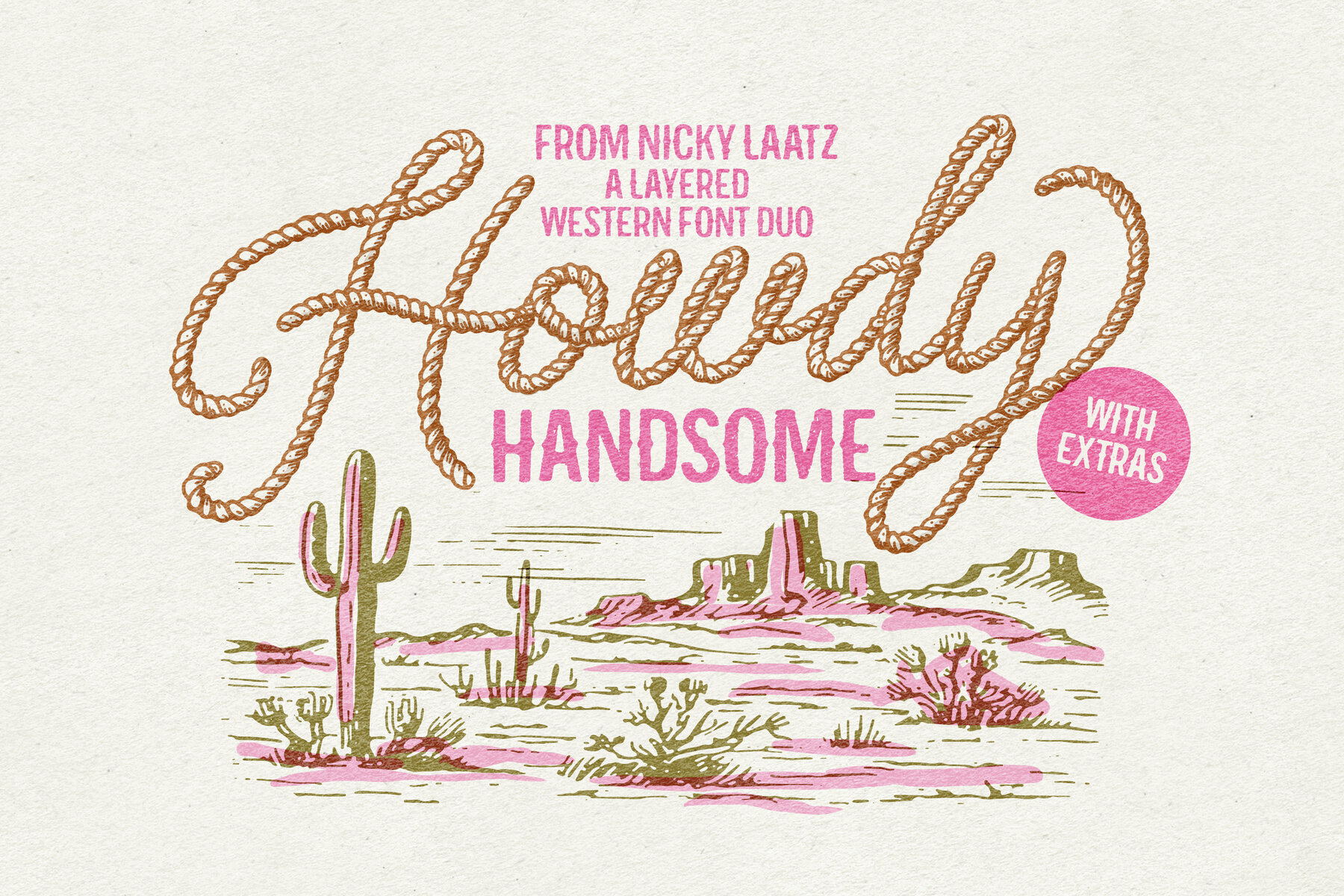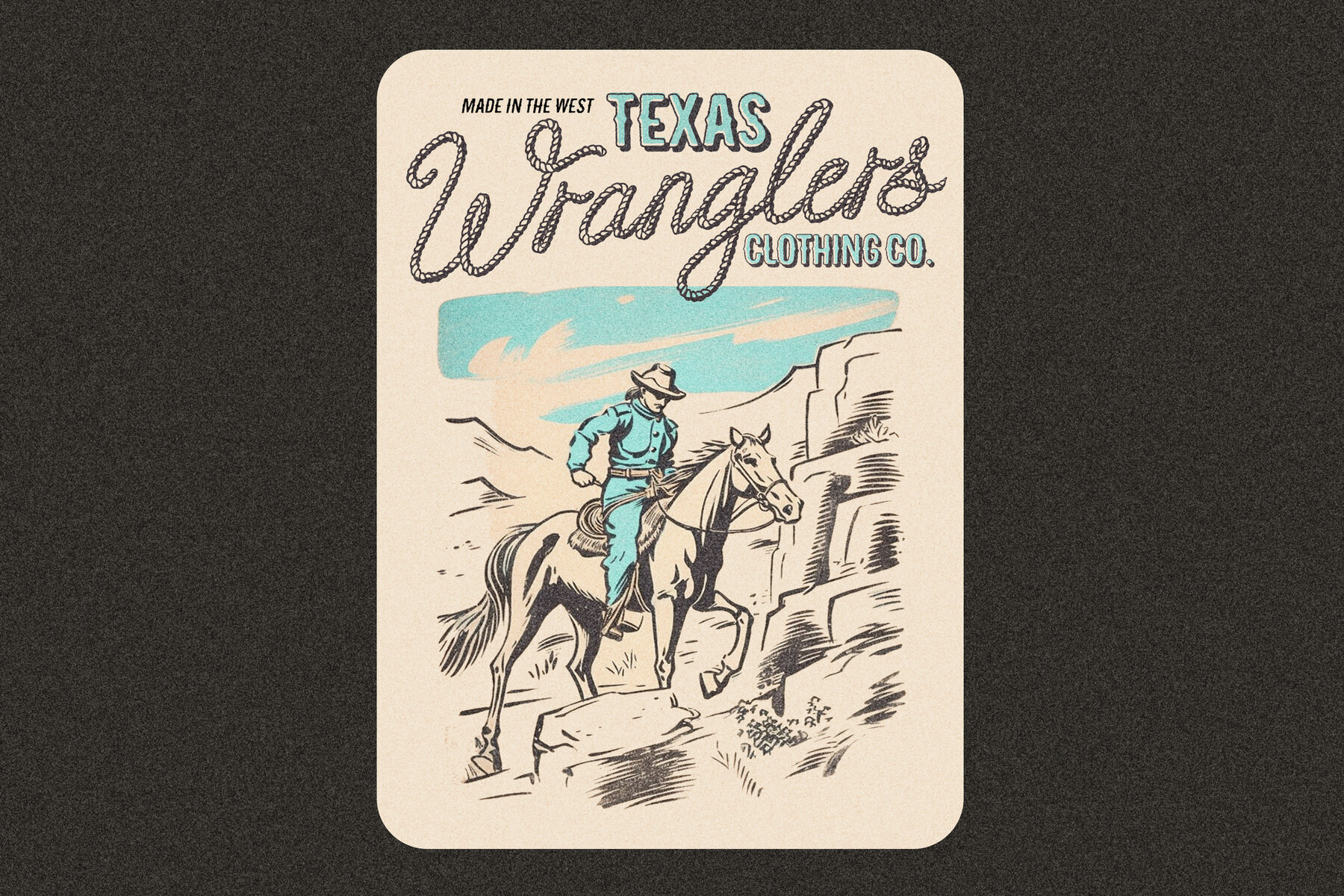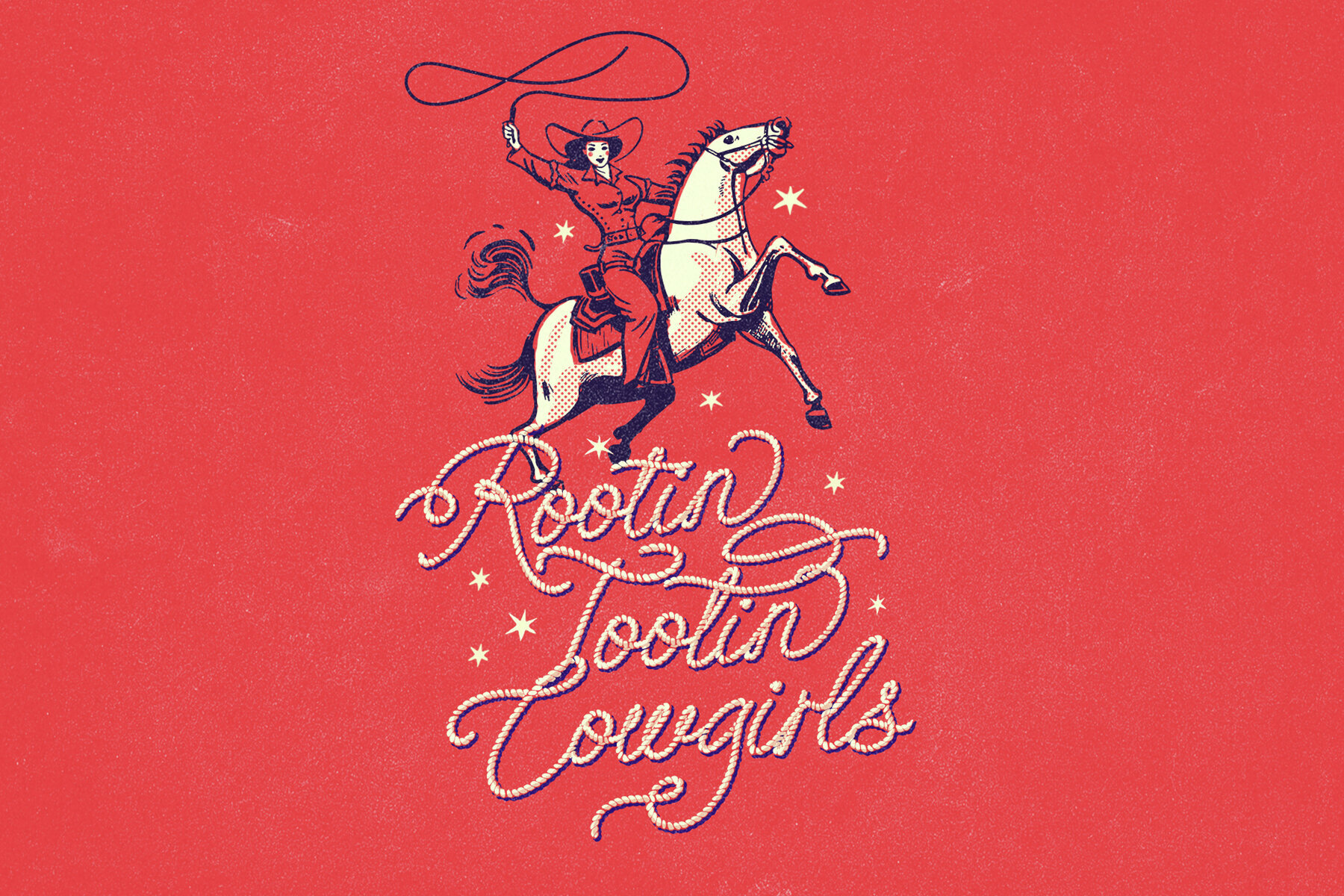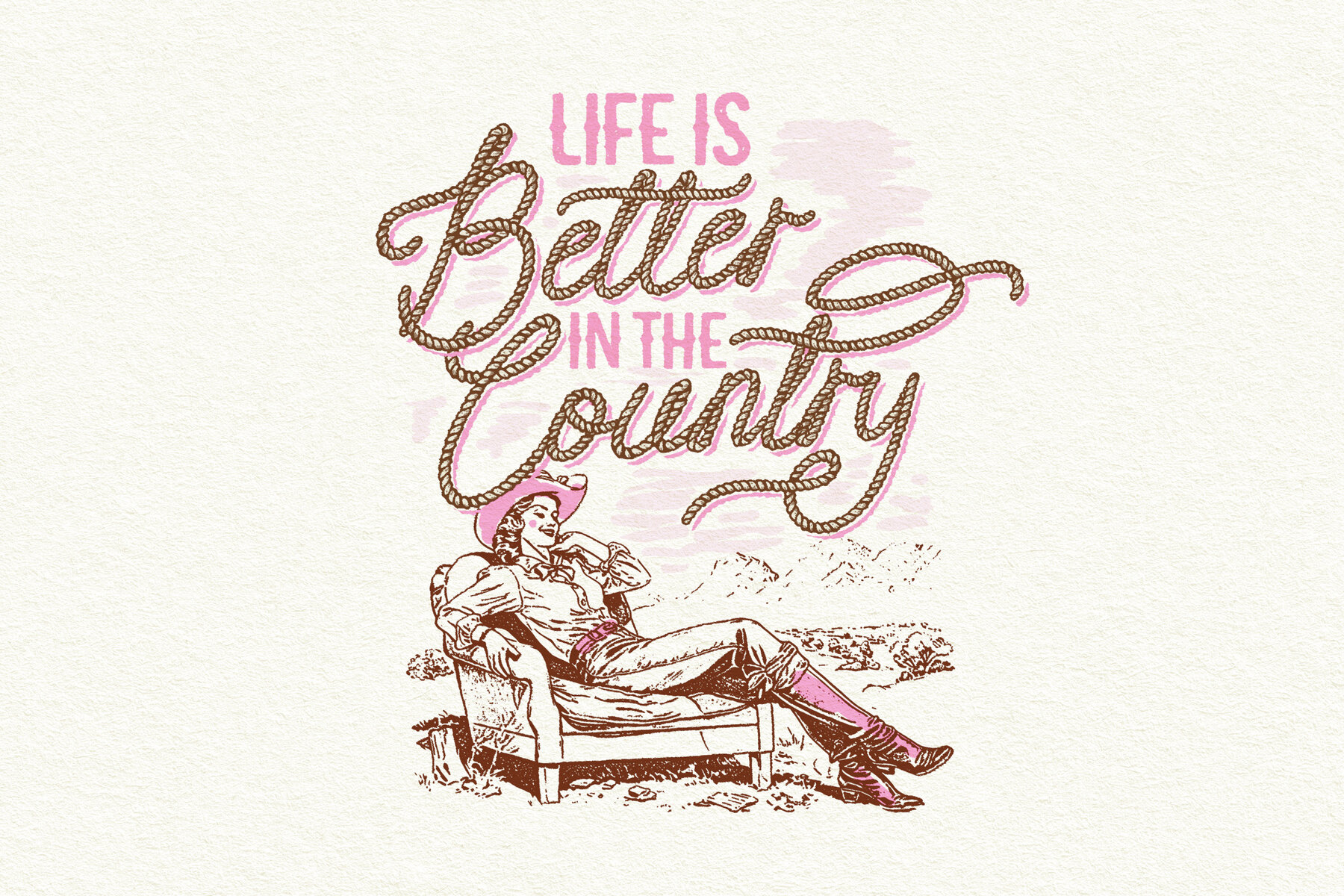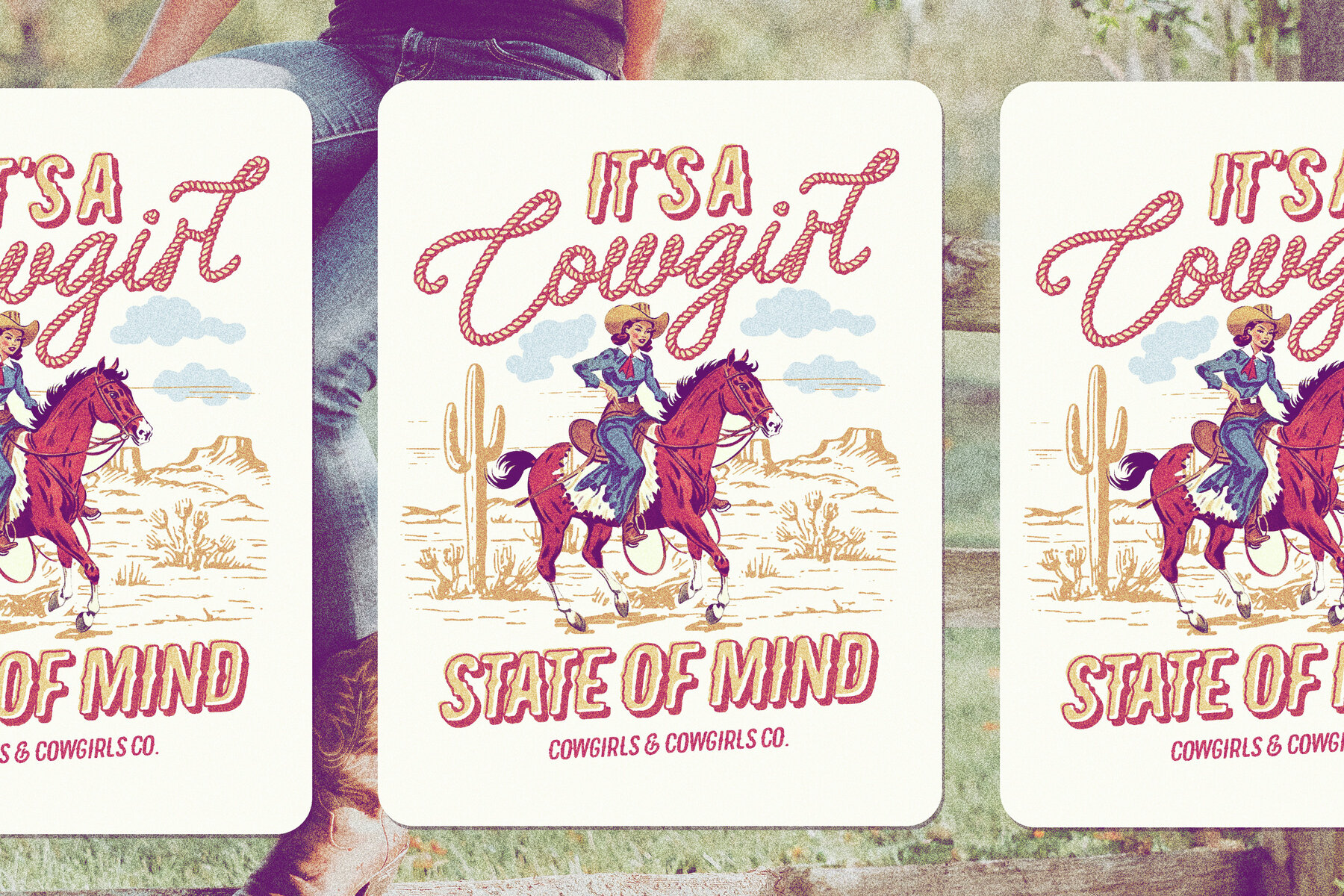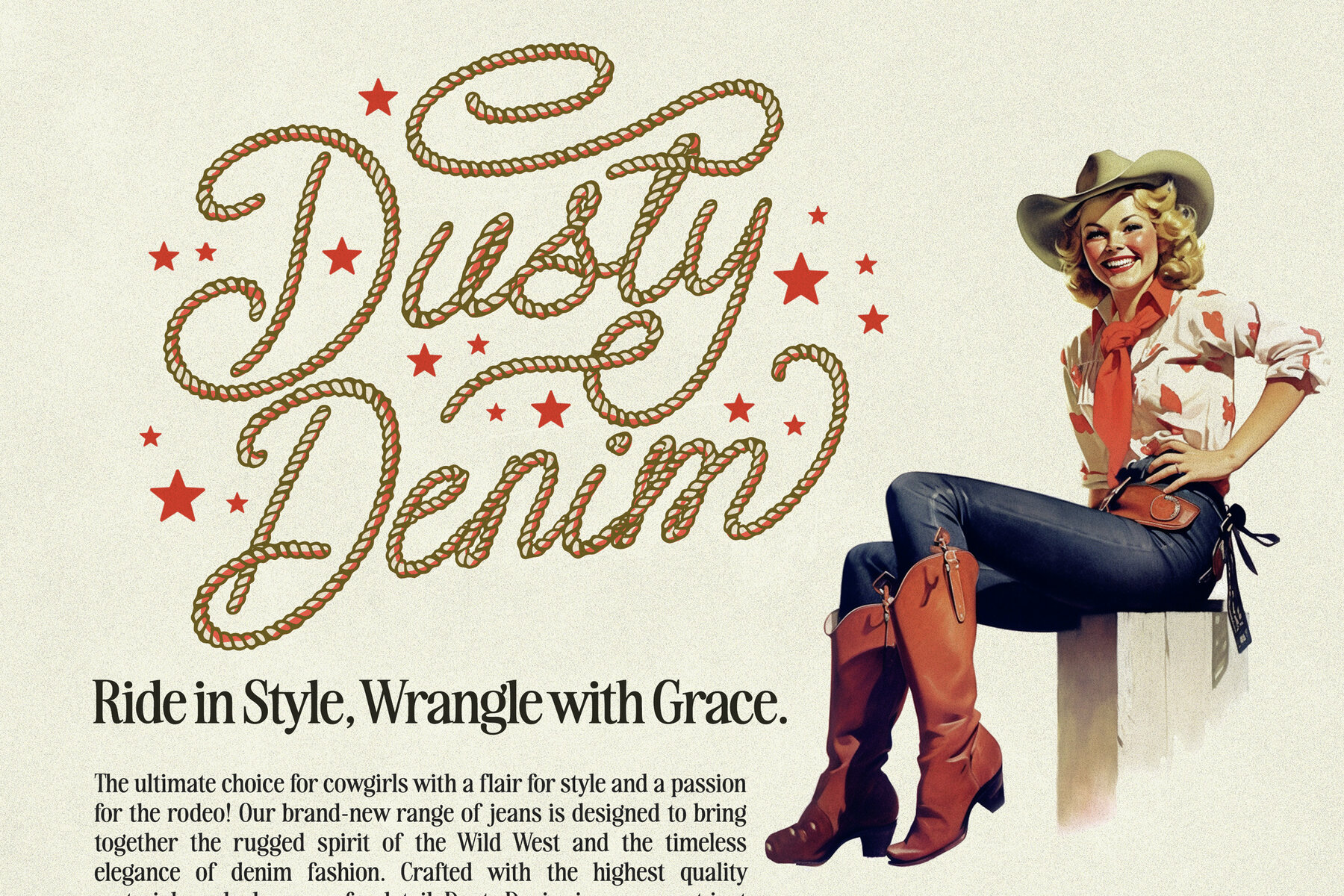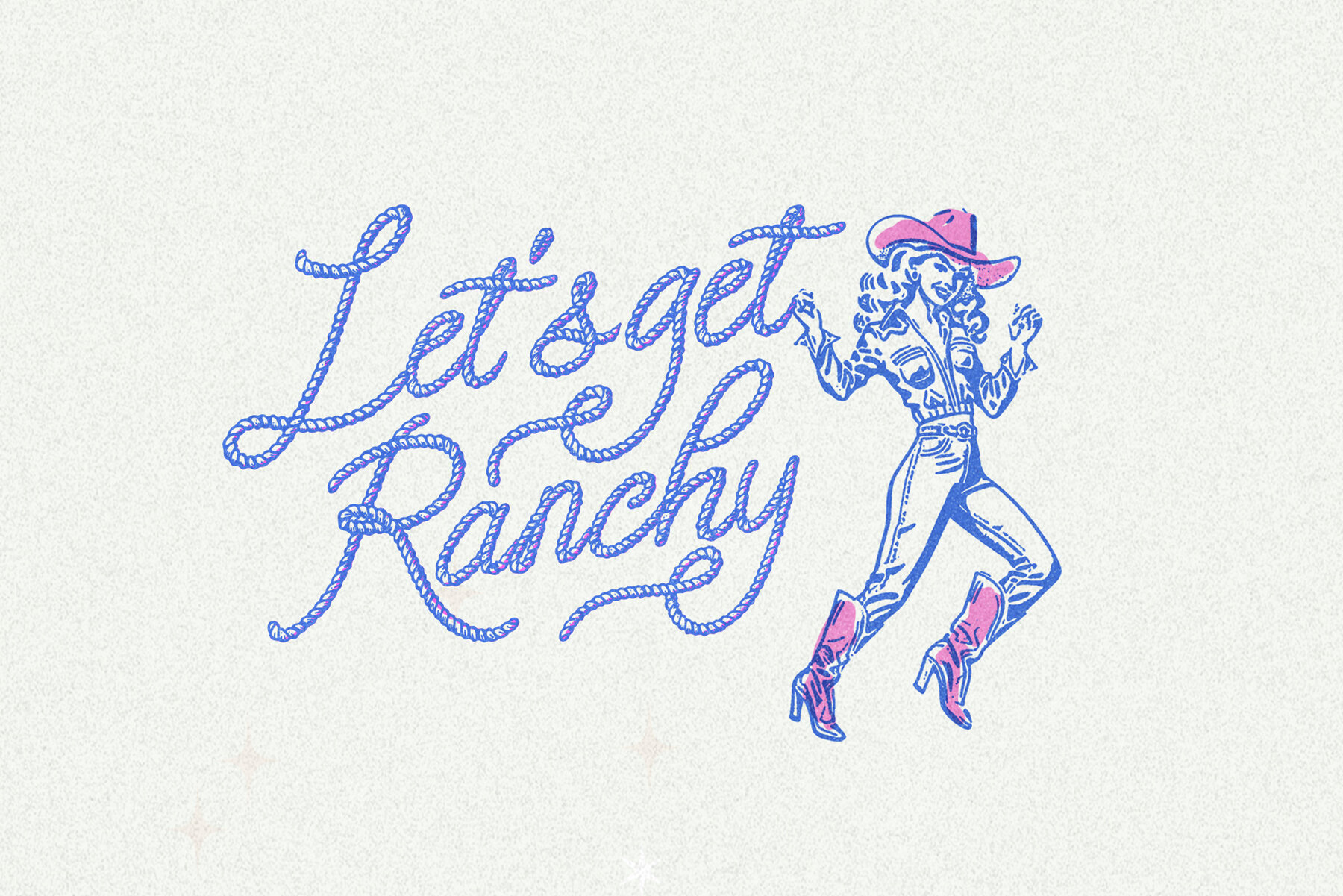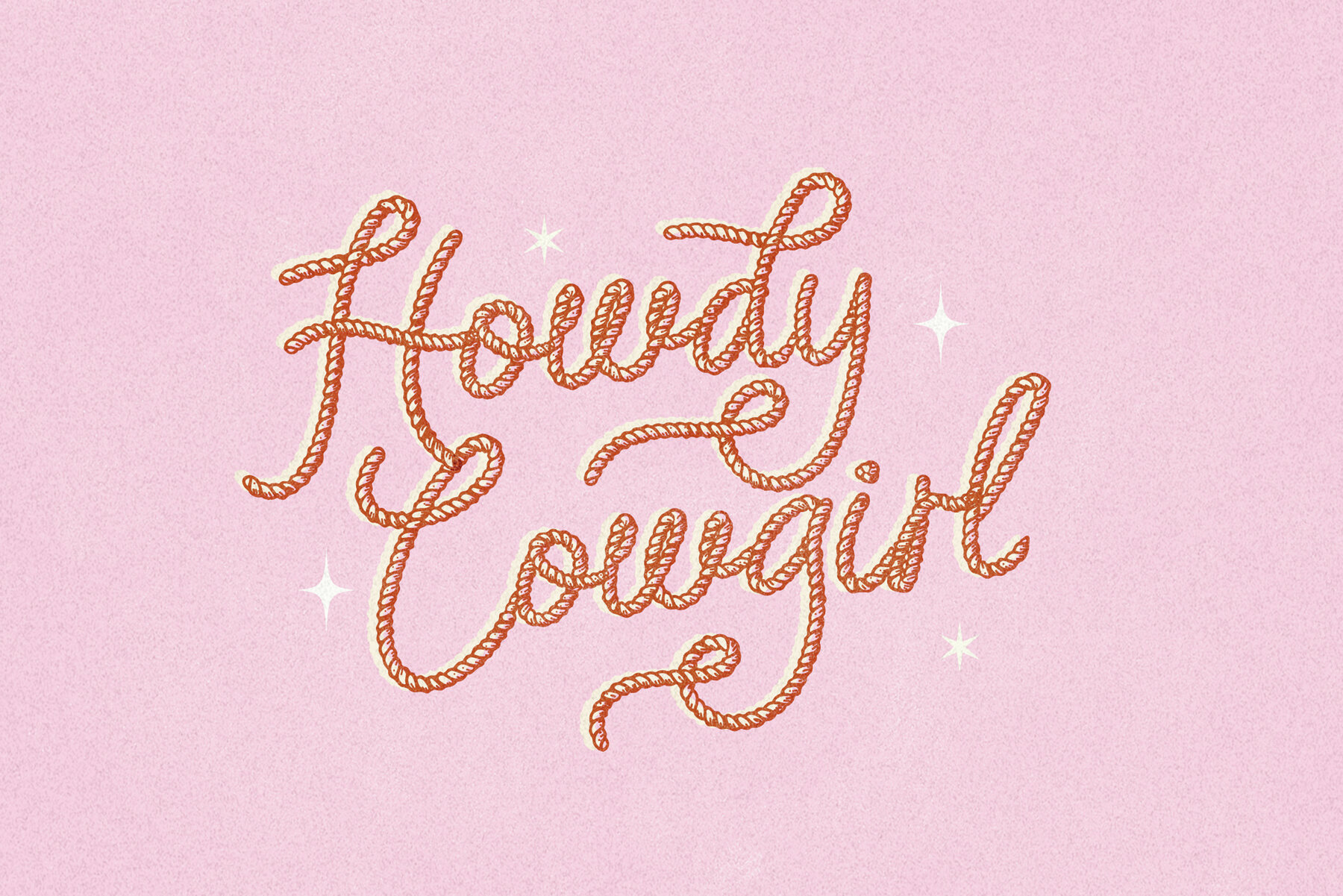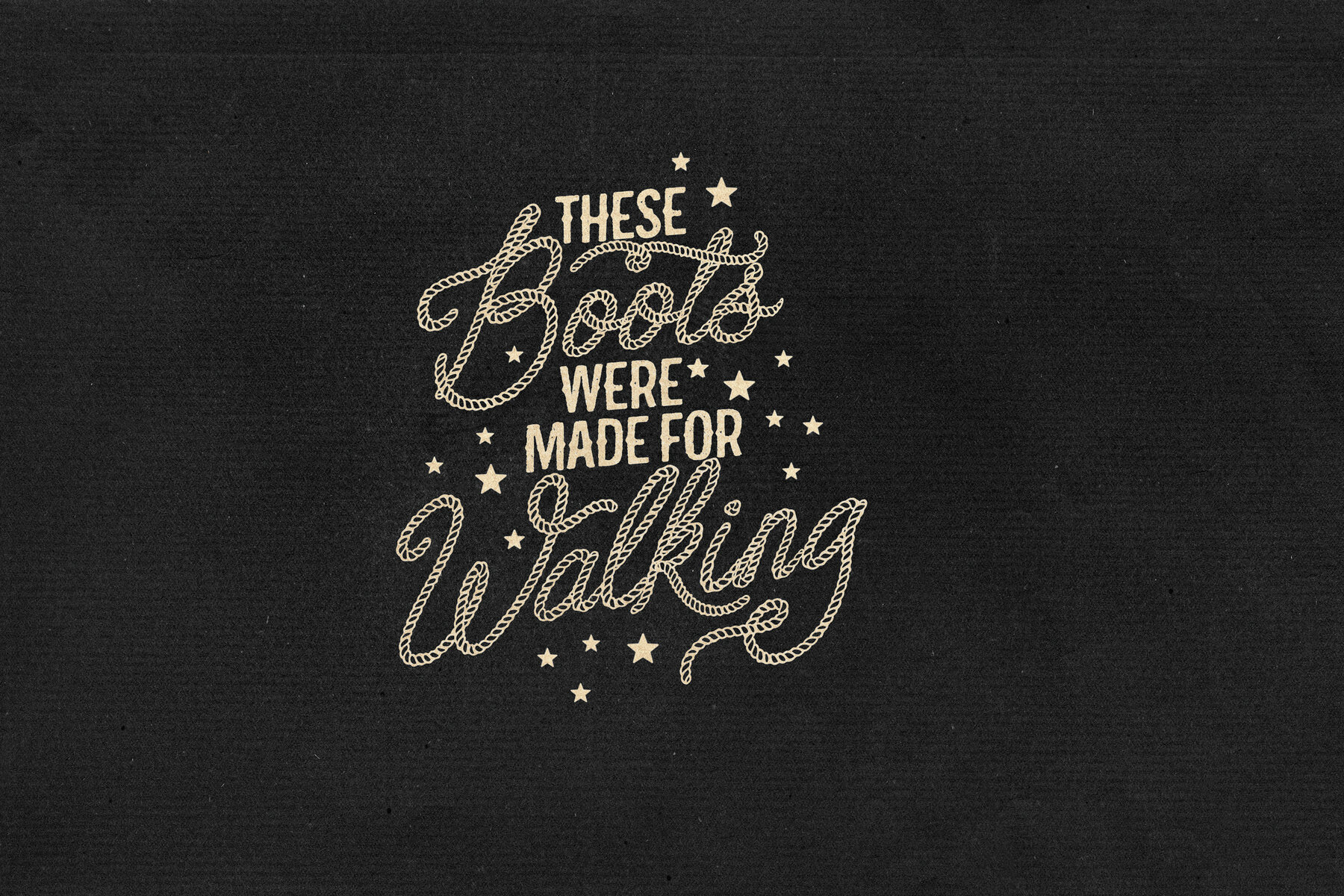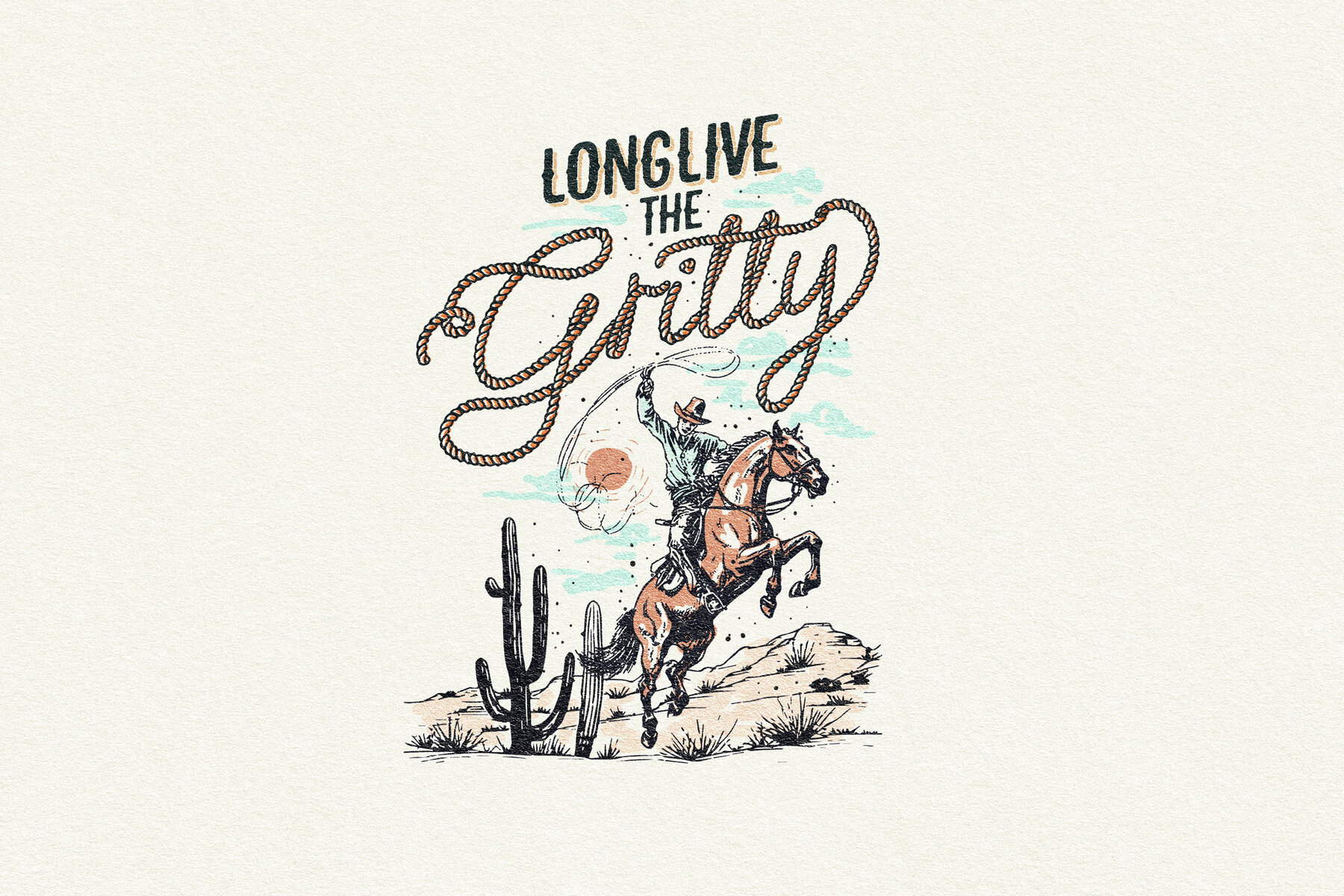
Howdy Handsome Font
It's time to lasso your designs with a touch of Cowboy creativity. 'Howdy Handsome,' a font duo impeccably designed by noted designer Nicky Laatz, introduces a Western flair to your graphics, deftly targeting graphic designers and marketing firms. This dynamic font duo promises to be a game-changer in your design arsenal. Break from the mundane with this layered western font duo. 'Howdy Handsome' injects a touch of rustic charm and personality into your designs, making them stand out. Fact: The world does need more cowboys, and now, with 'Howdy Handsome', you can add a cowboy feel to your creative work instantly. Key Features:Howdy Handsome Font - A Unique and Dynamic Layered Font Duo